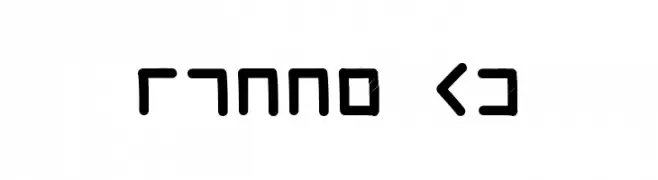
A bold, futuristic font with geometric shapes and a digital aesthetic.
A bold, angular font with a modern, textured design.
A playful and whimsical font with spiral and curly elements.
A decorative font combining musical notation with typography.
A playful, casual handwritten font with dynamic strokes and an informal style.
A bold, geometric font with a futuristic and cohesive design.
A modern, blocky font with rounded corners and consistent thickness.
A geometric, triangular font with a bold and futuristic design.
A geometric, angular font with a modern, futuristic aesthetic.
A decorative and artistic font with dynamic letterforms and dramatic flair.